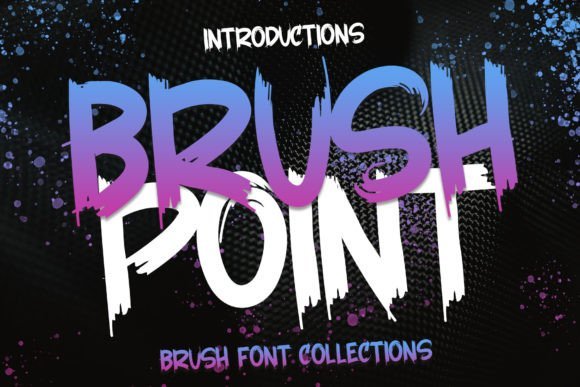
Discover the Timeless Charm of Brush Point Font
Have you ever found yourself in a creative rut, staring at a blank page or screen, searching for the perfect font to bring your design to life? You’re not alone. For designers, finding the right font can be the key to unlocking a project’s full potential. It’s a moment of discovery that can elevate your work from good to great.
Enter Brush Point Font, a stylish brush font that embodies the perfect blend of classic calligraphy and modern sophistication. Designed to enhance the beauty of your projects, Brush Point Font is the perfect addition to any designer’s toolkit. Its balanced and varied forms make it a versatile choice for a wide range of applications, from branding and advertising to editorial and packaging design.
With its impeccable form and contemporary atmosphere, Brush Point Font is a valuable asset for designers looking to add a touch of elegance and sophistication to their work. Whether you’re a seasoned pro or just starting out, this font is sure to inspire and delight.
Key Features of Brush Point Font
- Font Family: Brush Point is a unique, hand-drawn font family available in multiple weights and styles.
- Unique Characteristics: The font’s hand-drawn design and subtle imperfections give it a natural, organic feel, perfect for creative and artistic projects.
Brush Point Font Review
Overall, I found Brush Point Font to be a charming and elegant addition to any design project. ✨ Its unique blend of modern and classic elements makes it suitable for a wide range of applications, from branding and marketing materials to editorial and digital content.
- ✨ High-quality letterforms and intricate details create a visually appealing aesthetic.
- ✨ Brush Point Font offers excellent legibility, making it a great choice for body text.
- ✨ The font’s versatility allows it to work well in both digital and print formats.
Limitediations
- ⚠️ Limited language support may be a concern for designers working on multilingual projects.
- ⚠️ Brush Point Font may not be the best choice for large blocks of text, as its unique style can become overwhelming.
Brush Point Font is a beautiful and well-crafted font that can add a touch of sophistication to any design project. While it may have some limitations, its unique style and high-quality letterforms make it a valuable addition to any designer’s toolkit.
Brush Point Font is ideal for:
- Creating a unique and creative look for social media graphics.
- Designing invitations and event materials.
- Adding a personal touch to business cards and letterheads.